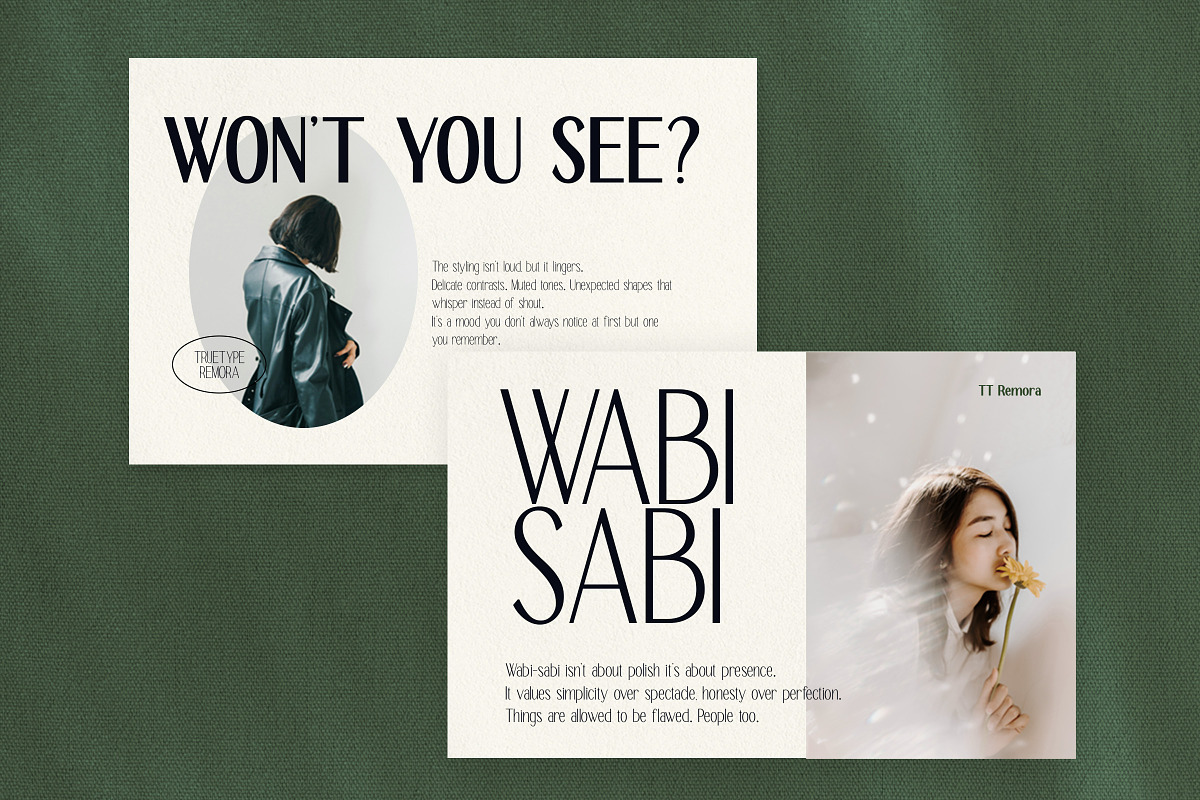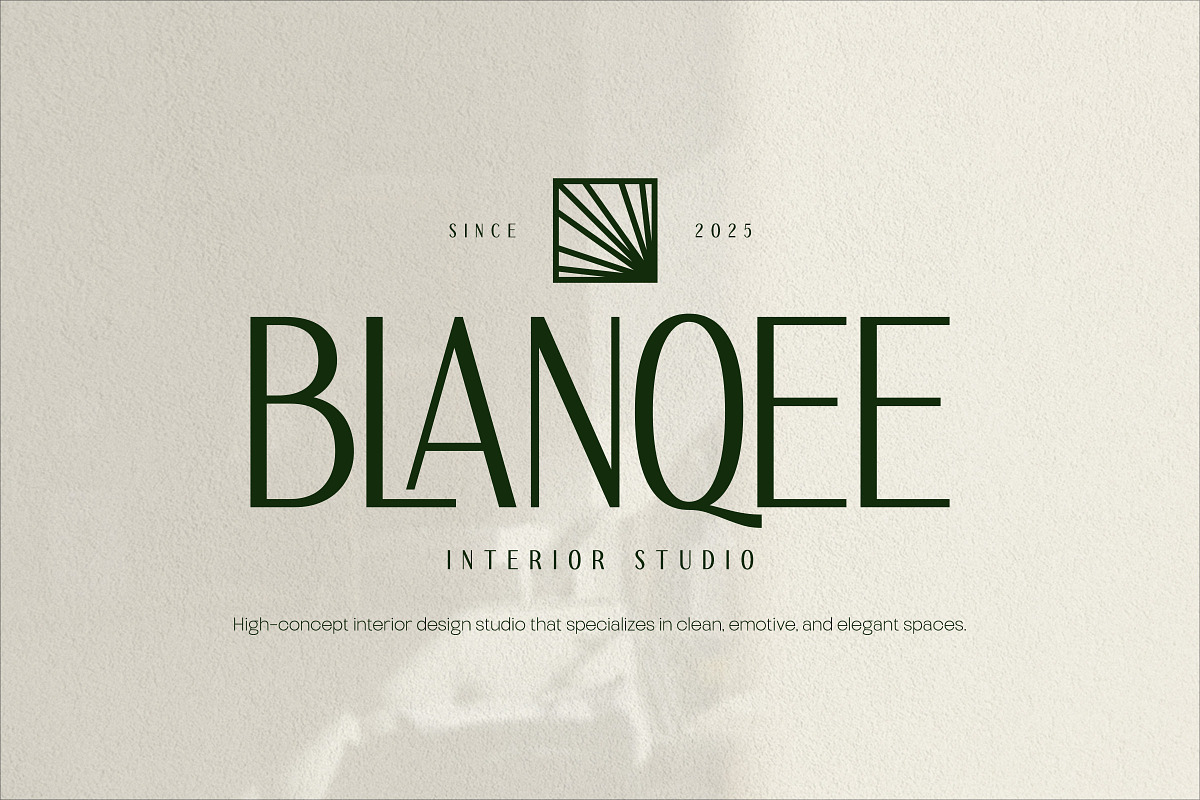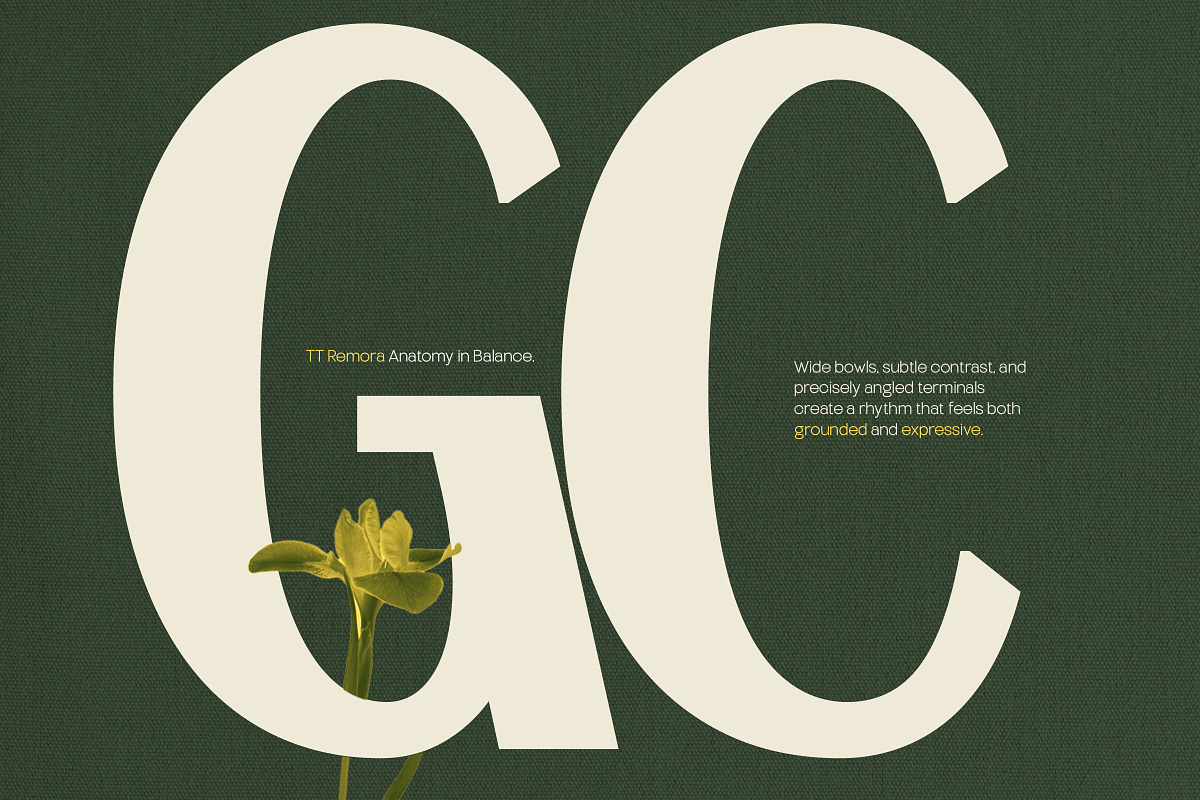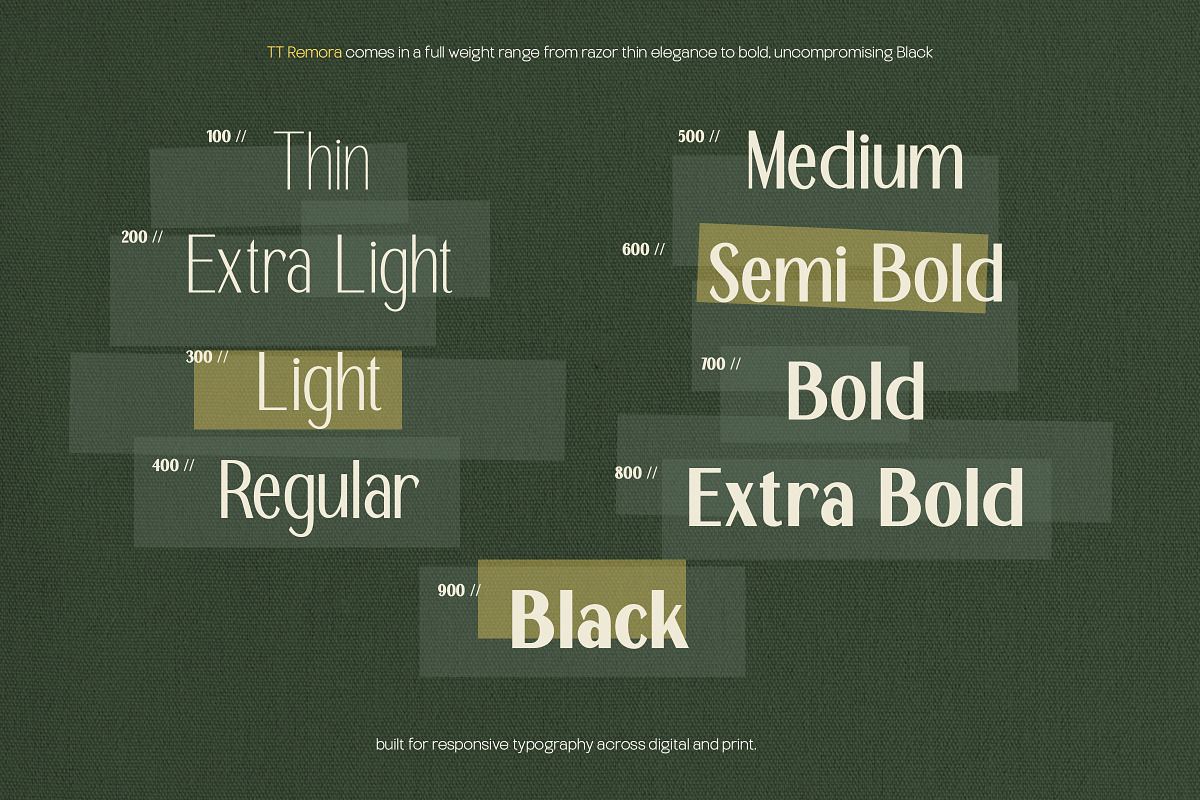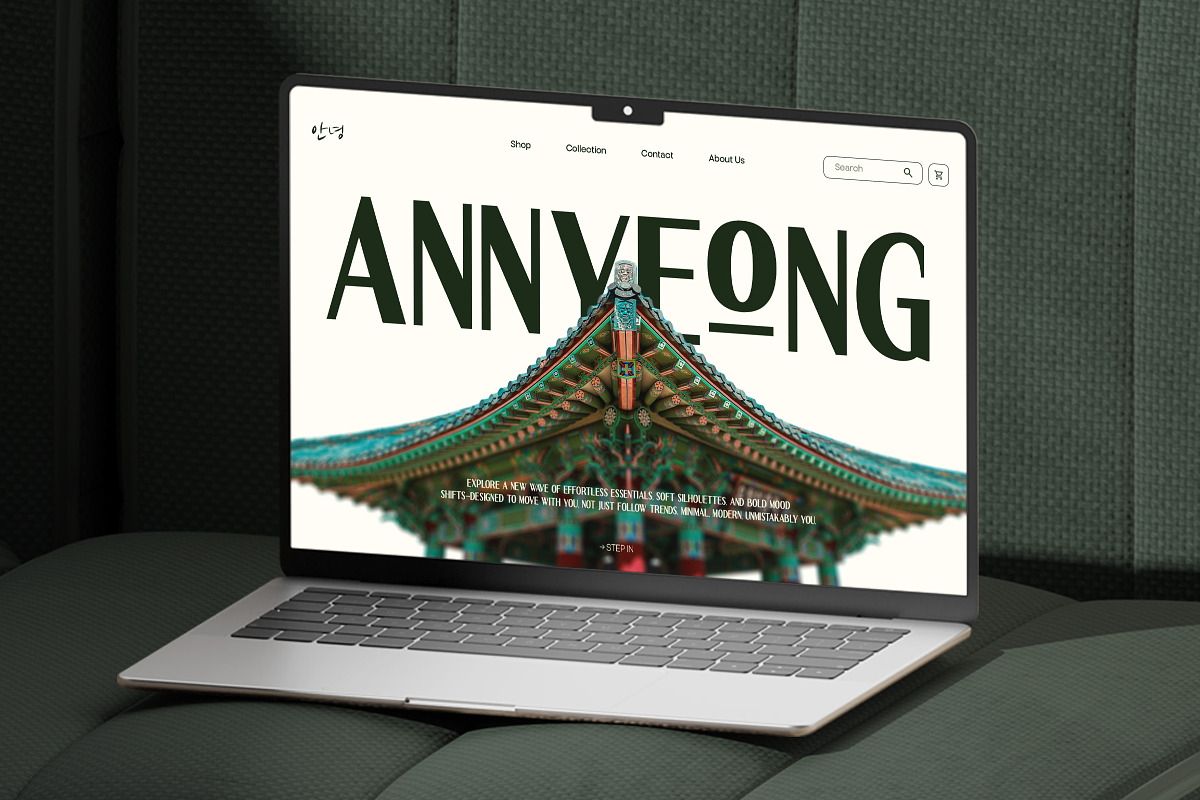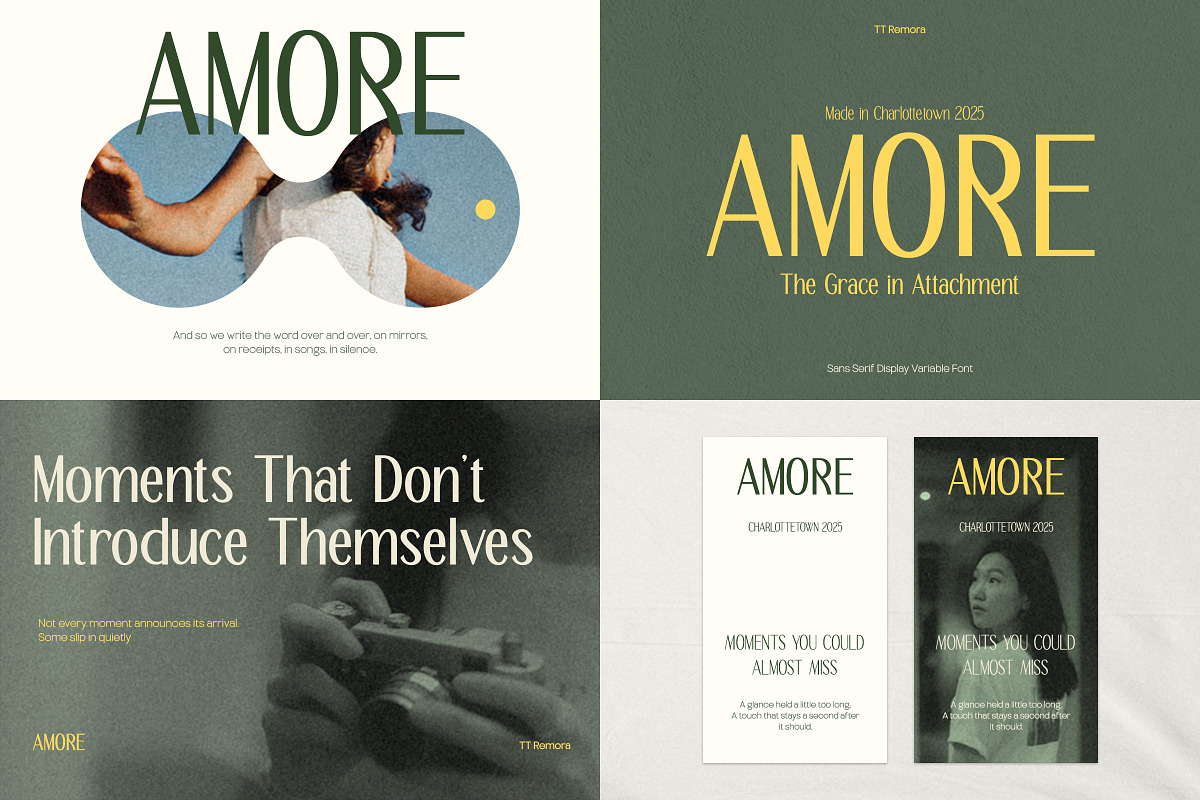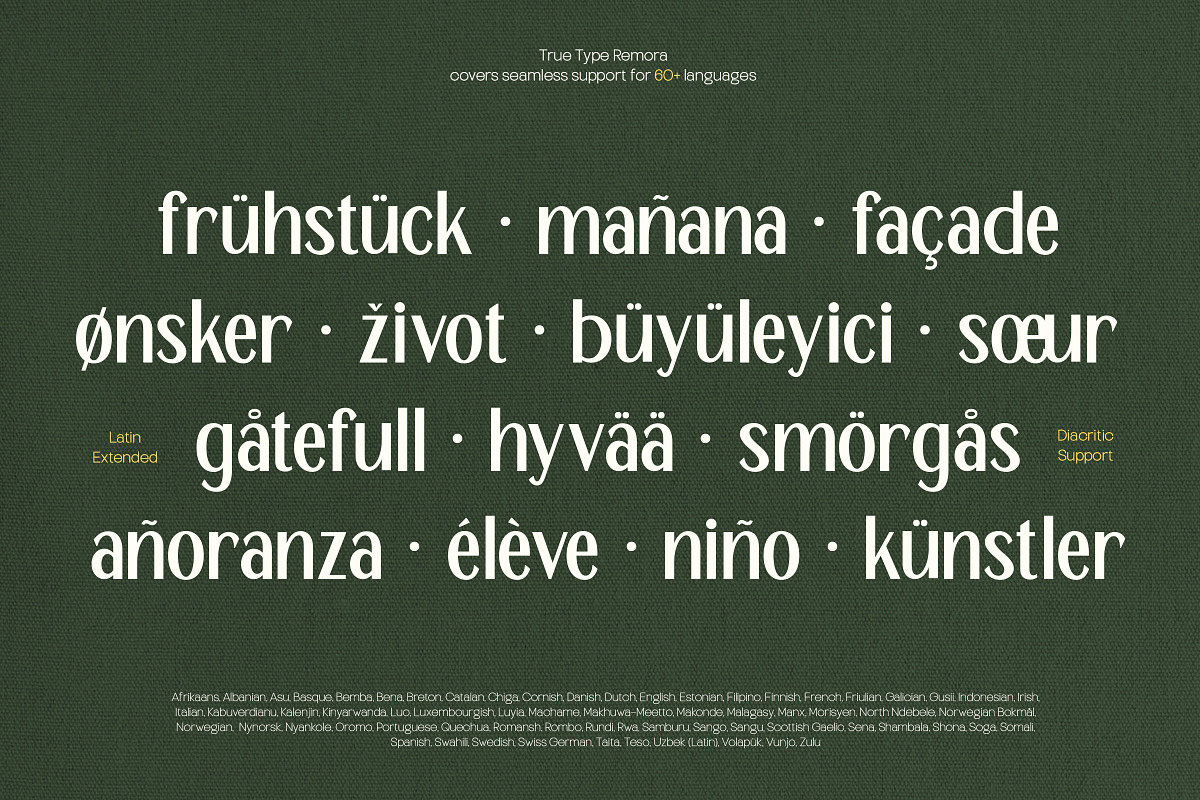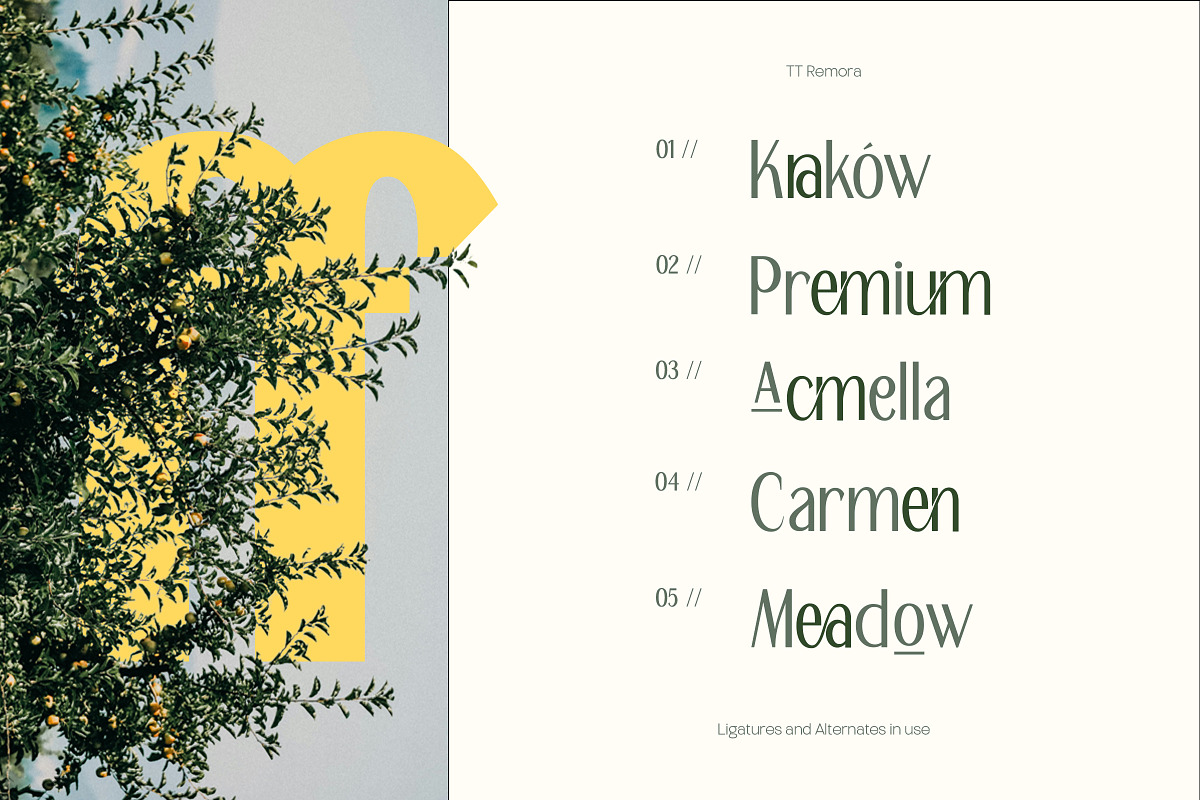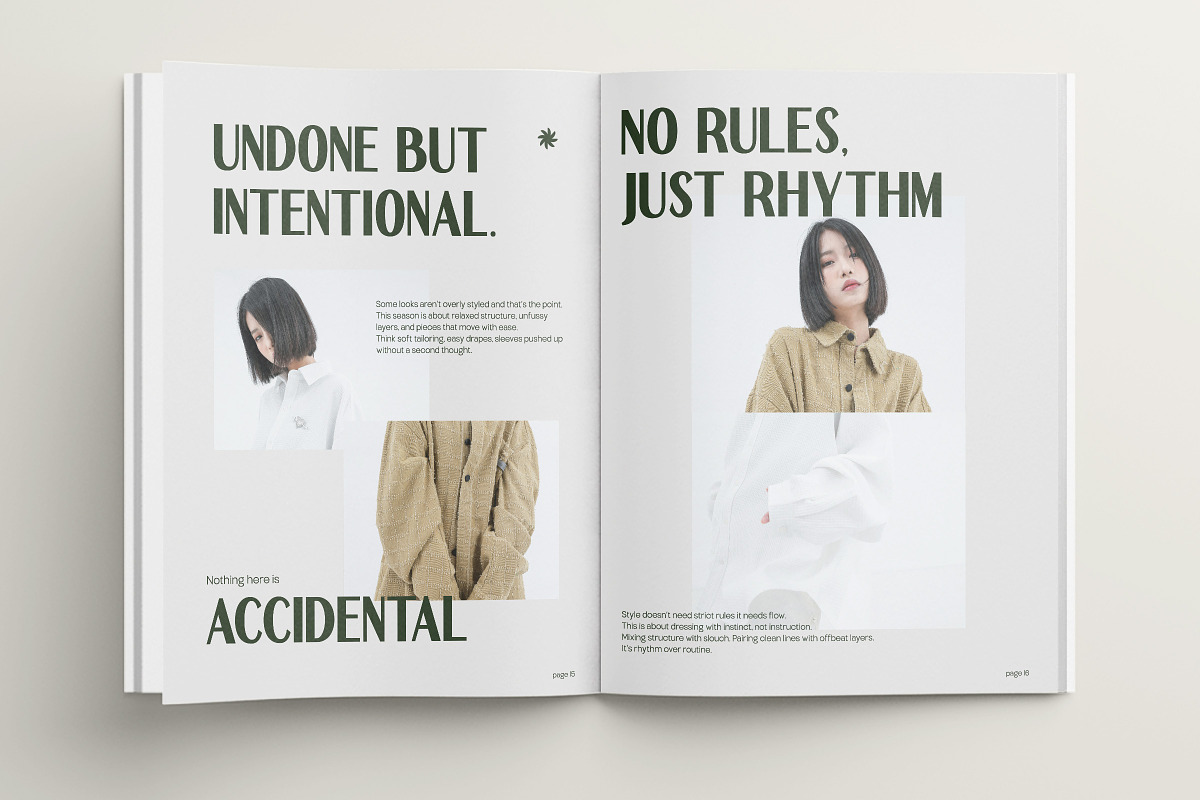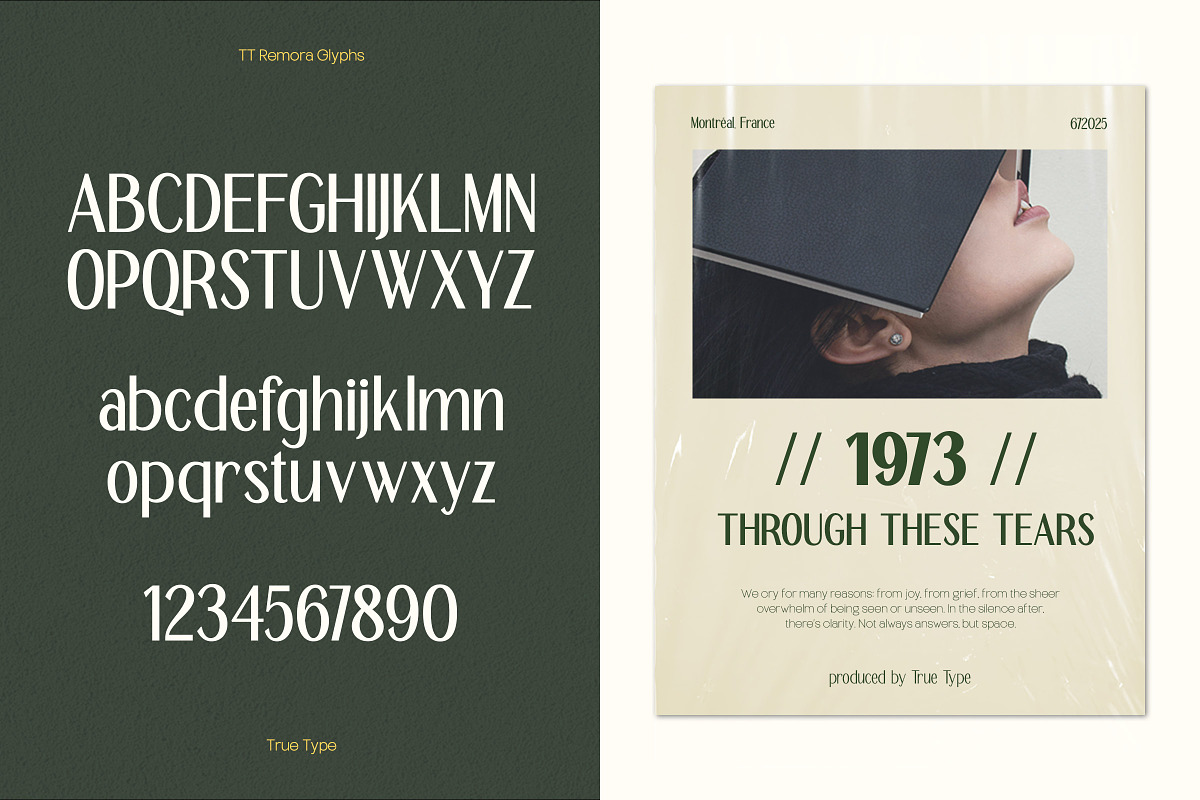
TT Remora – Modern Sans Display
TT Remora is a contemporary sans serif typeface family that blends character and clarity across eight carefully crafted styles — from delicate Thin to assertive Extra Bold. Designed with a TT Remora sensibility, TT Remora balances clean geometry with expressive letterforms, making it highly versatile for a wide range of applications.
Its tall x-height, elegant curves, and precise spacing ensure excellent readability at both small and large sizes. Whether you're designing editorial spreads, crafting brand identities, or creating engaging digital content, TT Remora brings a fresh and refined voice to your typography.
This typeface is confident without being rigid, stylish yet functional — offering a typographic solution that feels both professional and personable.